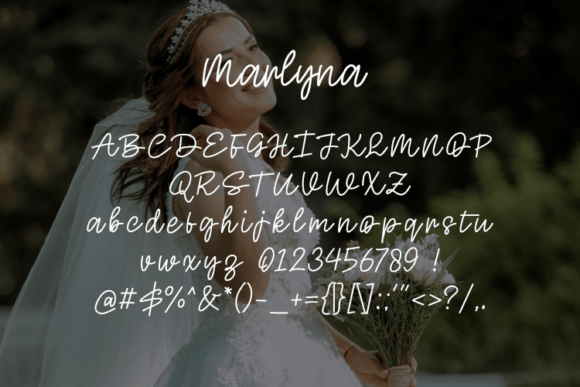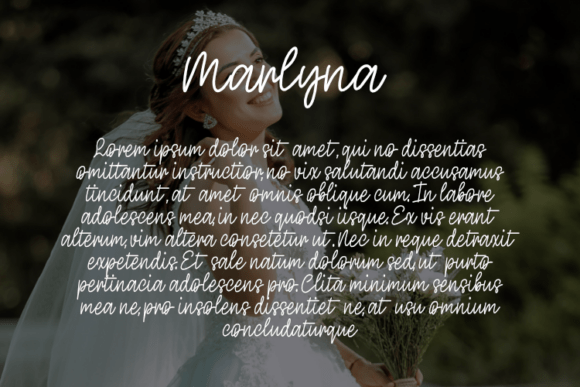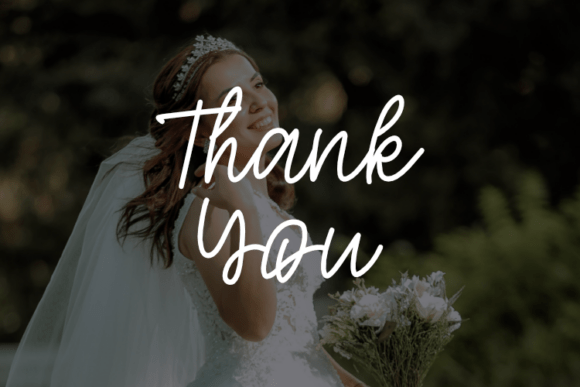
Introduction to Marlyna Font Font
Fonts play a crucial role in design, and the Marlyna Font font is a typeface that brings both character and versatility to any project. Whether you’re working on a branding project, a website, or a print design, the Marlyna Font font offers a unique style that can elevate your work.
βMarlynaβ β a wonderfully versatile font that effortlessly enhances the aesthetic of apparel such as clothing and t-shirts, but doesnβt stop there.
The Marlyna Font font is more than just a typeface β it’s a design tool that helps you communicate your message with style and clarity. Its unique character set and versatile design make it suitable for a wide range of applications, from elegant invitations to bold headlines.
With its carefully crafted letterforms and balanced proportions, the Marlyna Font font ensures readability and visual appeal across all mediums.
What makes Marlyna Font font special?
The Marlyna Font font stands out with its unique design, exceptional readability, and versatility across various design applications.